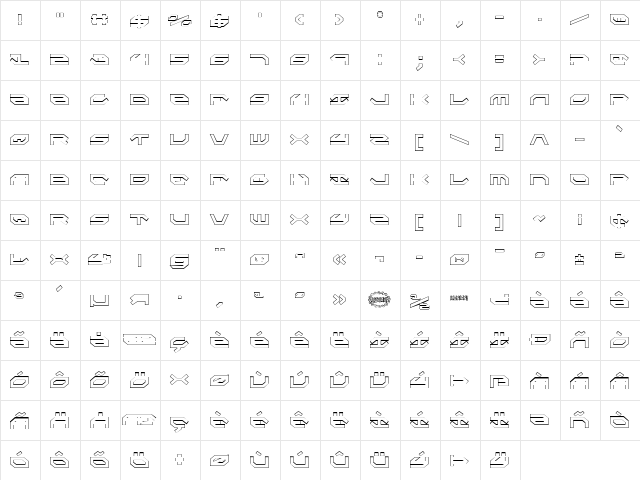
Taskforce Condensed Outline
Design Context for Taskforce Condensed Outline Typeface
Taskforce Condensed Outline brings high-energy athletic personality to the page — its confident, muscular forms are built for impact. The condensed width makes it efficient for tight spaces without sacrificing legibility.
Built for sports team identities, athletic apparel, event posters, and high-energy promotional material.